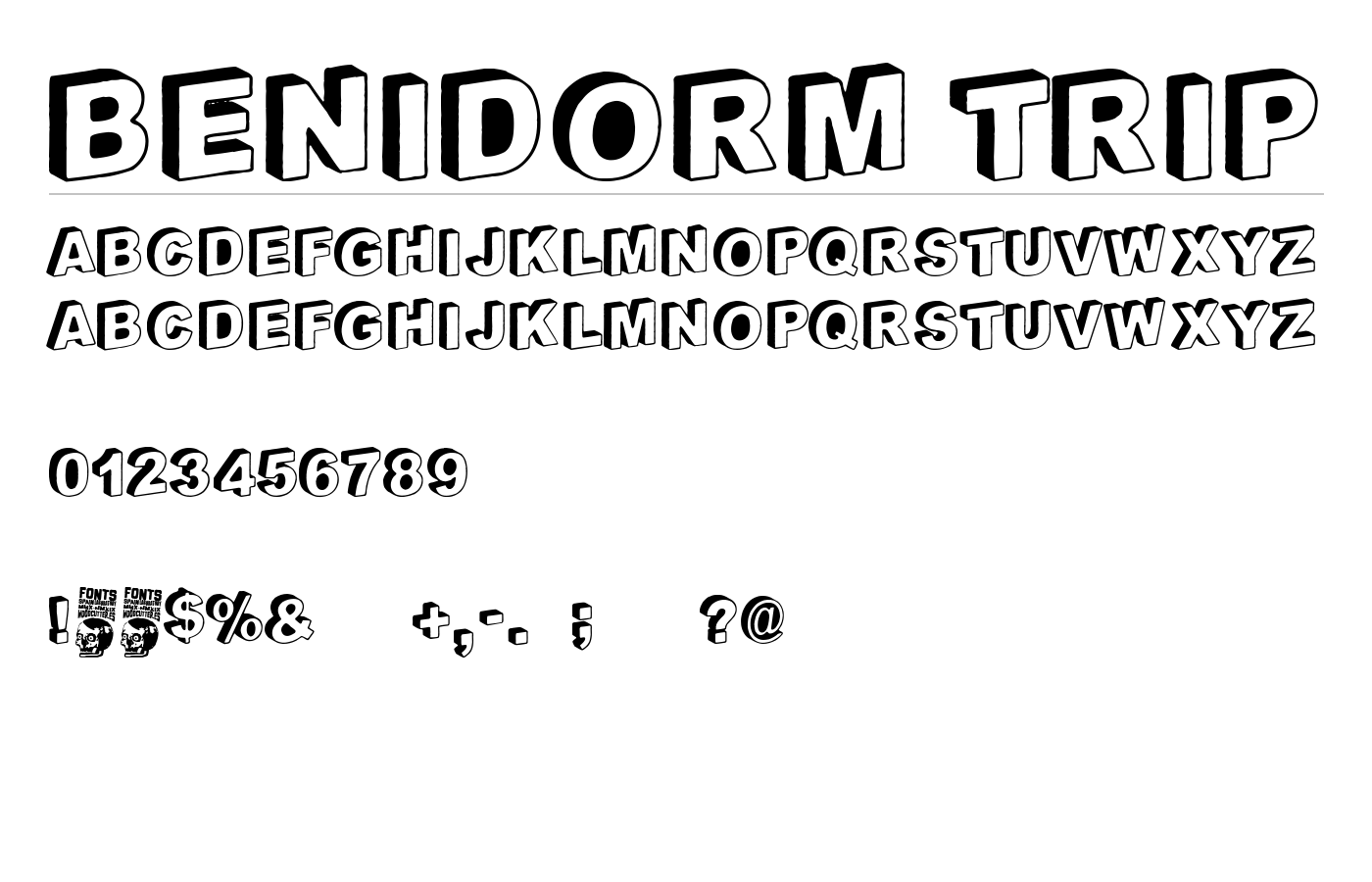
Benidorm Trip is a playful and bold sans serif display font with a fun 3D shadow effect that adds a sense of depth and energy. Its all-caps letterforms are chunky and slightly irregular, making the font perfect for eye-catching headlines, posters, and branding that seeks a lively, informal vibe. This font works well for creative projects, youth-oriented designs, and any context where a dynamic, approachable style is desired.
Benidorm Trip Font
About Benidorm Trip Font